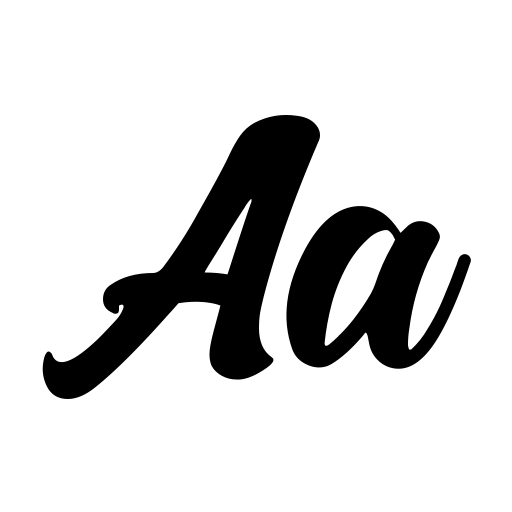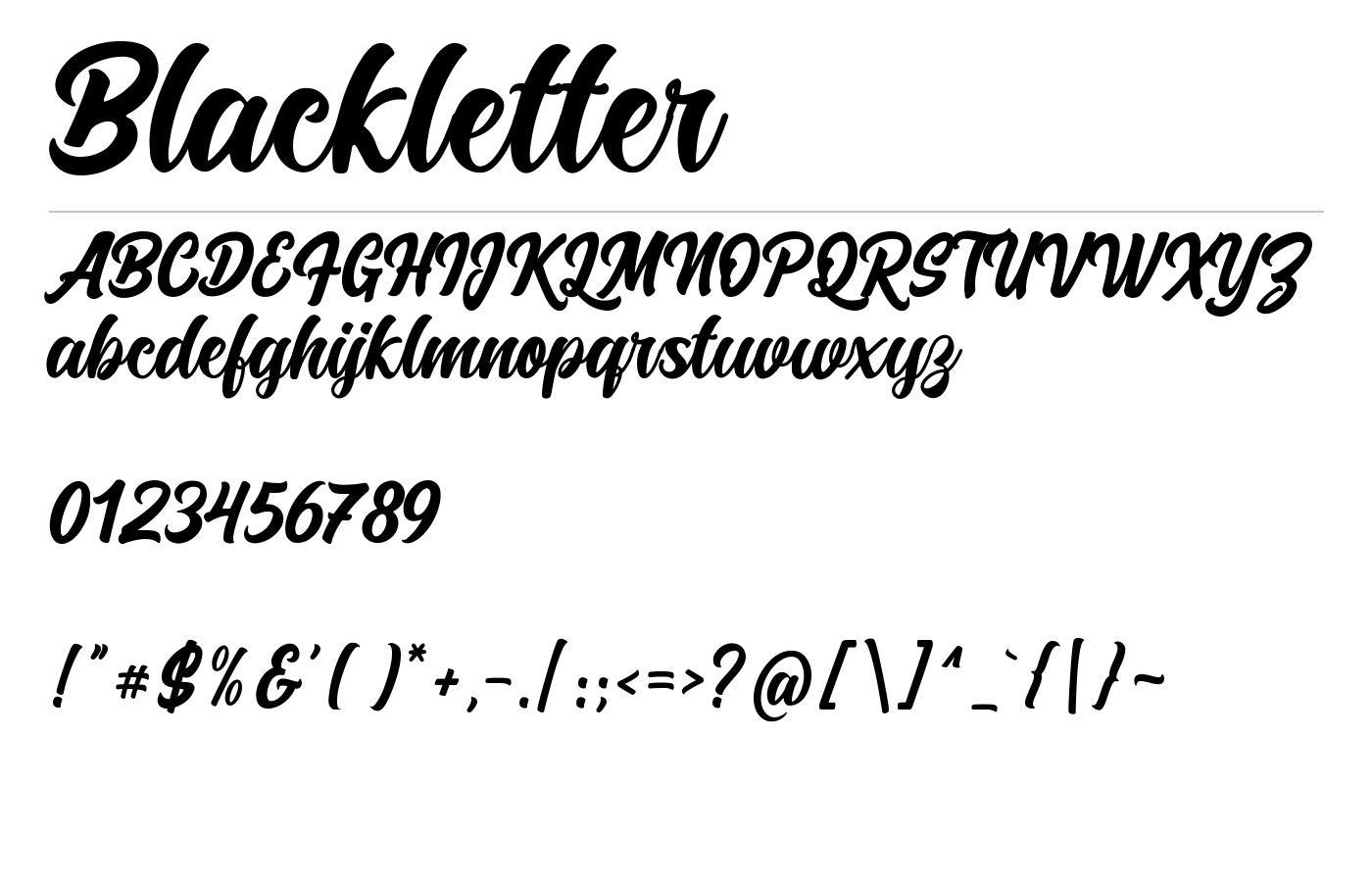
This Blackletter font features a bold, flowing script style with smooth, rounded strokes that give it a lively and dynamic character. Its well-balanced weight and cursive letterforms make it ideal for eye-catching headlines, logos, and branding that require an elegant yet approachable feel. Perfect for creative projects seeking a touch of classic charm blended with modern readability.
Blackletter Font
About Blackletter Font
| Font family | Blackletter Font |
| Designer | Febryl Arully |